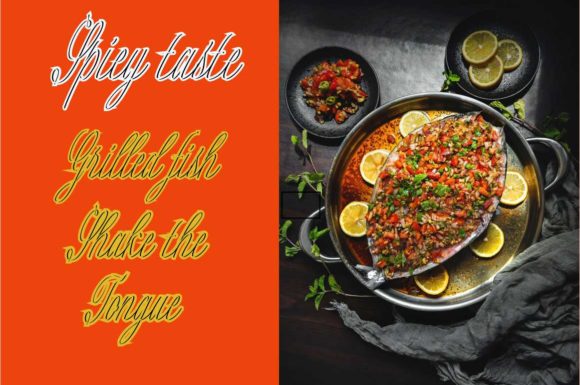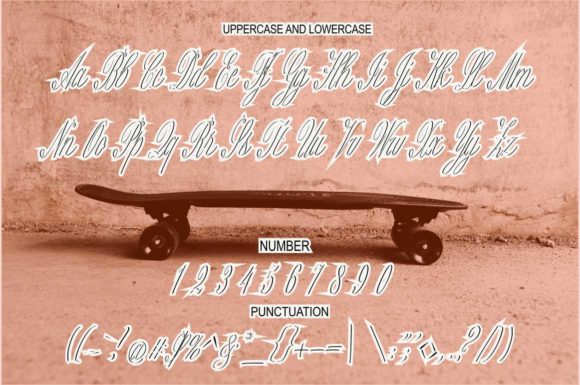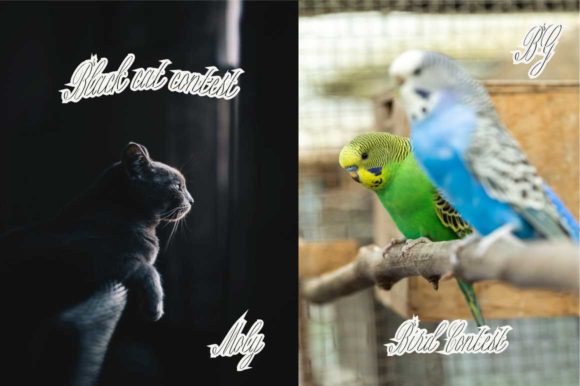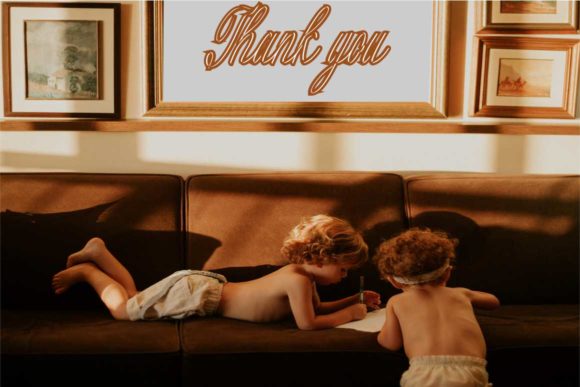
Raja Basah Font
About Raja Basah Font
Raja Basah is a unique blend of classic and modern fonts. Get inspired by with its authentic feel and use it to create gorgeous wedding invitations, beautiful stationary art, eye-catching social media posts, and cute greeting cards.